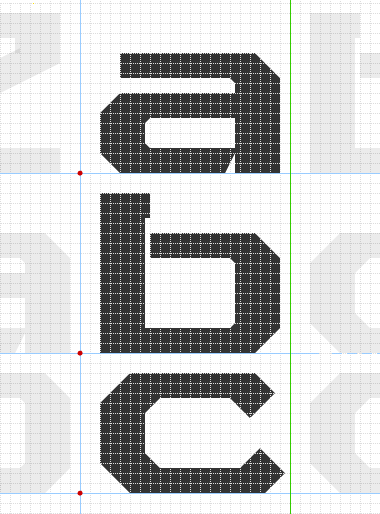
When the uppercase is so good, who needs the lowercase!
I agree with thal - a self-contained UC. just needs the rest of the numbers etc. 10/10 from me
Very nice, well balanced font. Make this a set of small caps. 10/10
Thanks everyone. @Frodo: that's a good idea. But I've been overtaken by the tyranny of a new idea using the same proportions, more or less. This time I'll double the scale. I'll knock off these diagonal crossbars convincingly if it kills me.
Wow, thanks, afrojet! I was gutted I hadn't started big enough but maybe I should content myself with Frodo's suggestion and do a small caps. But I think I'd have to work back-to-front: move the present caps figures to the lower case slots and then construct bigger versions for the caps. A bit daunting, trying to keep the proportions the same in a too-tight grid scheme. Maybe an unshared clone as a trial first...
I think it might be possible.
Sir. You've got the job. A thalaglio, go on. Phew! That tight little single-brick turn. The s might be another matter, mind.
Ok. I finished the lowercase. You can take a look if you log in as me.